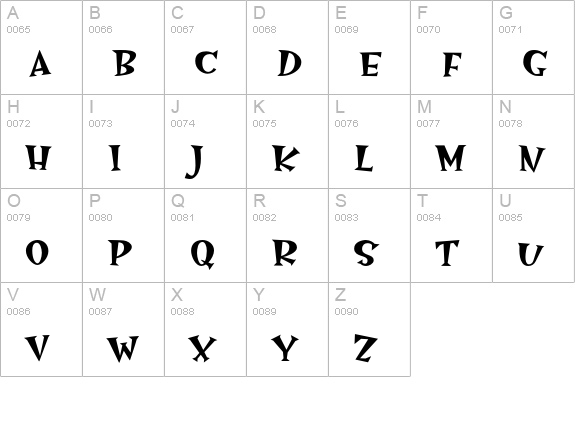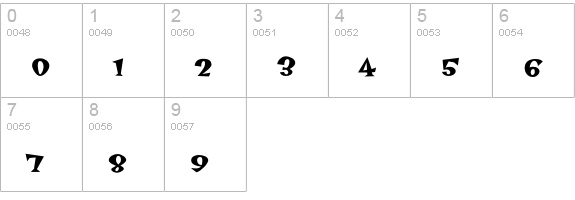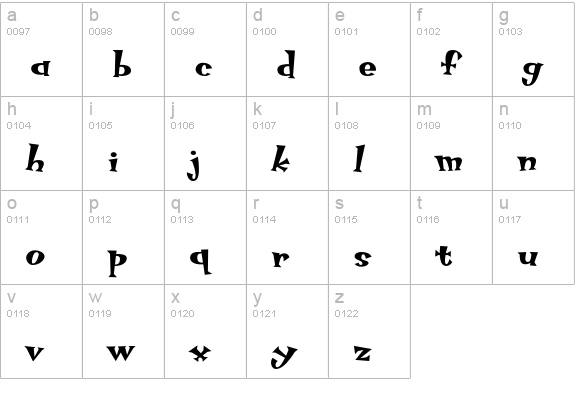
HotsyTotsy-Semibold-MvB Font Details
HotsyTotsy-Semibold-MvB is a sub-bold, structured variant in the HotsyTotsy typeface family \xE2\x80\x94 well suited to sub-headlines and emphasised passages.
HotsyTotsy-Semibold-MvB font exudes elegance and sophistication with its sleek lines and modern aesthetic. This versatile typeface strikes the perfect balance between boldness and subtlety, making it ideal for a wide range of design projects. Whether you're creating a striking headline or adding a touch of class to your branding, HotsyTotsy-Semibold-MvB is sure to make a statement. Best of all, this exquisite font is available for free download at FontsMarket.com. Embrace the beauty and versatility of HotsyTotsy-Semibold-MvB today and elevate your design projects to new heights.